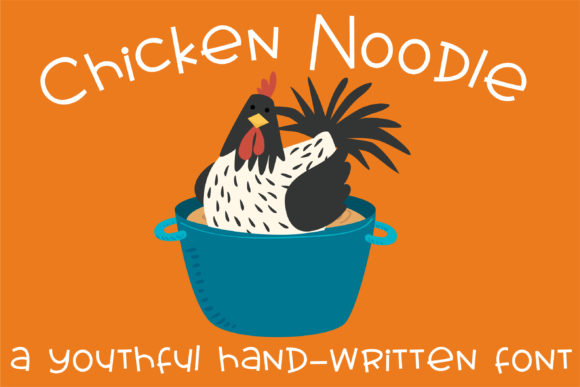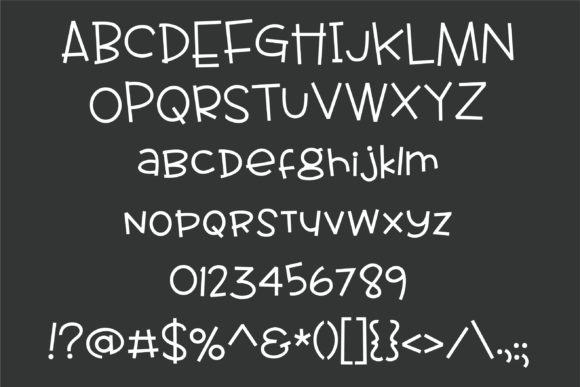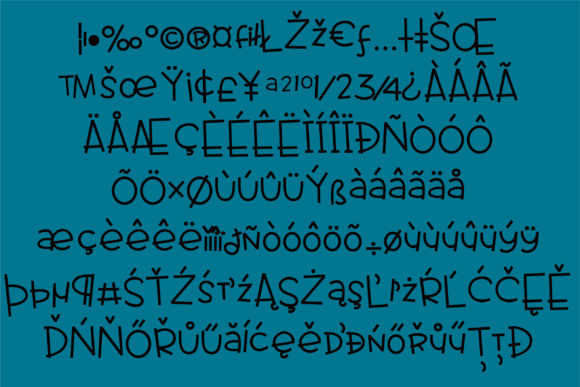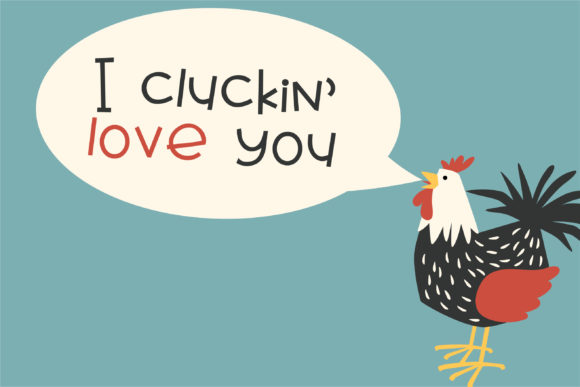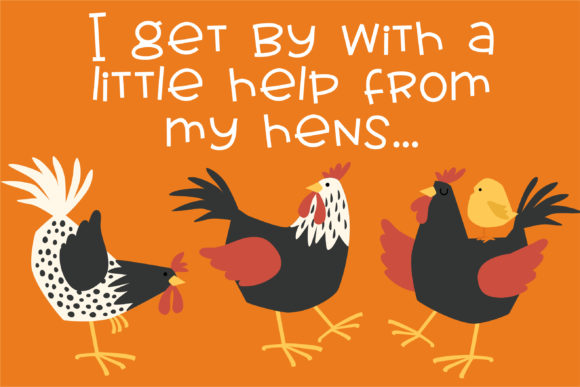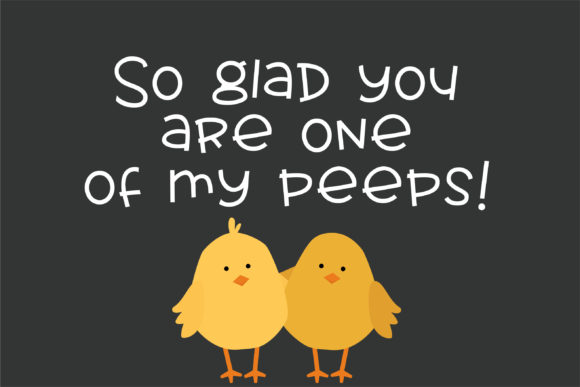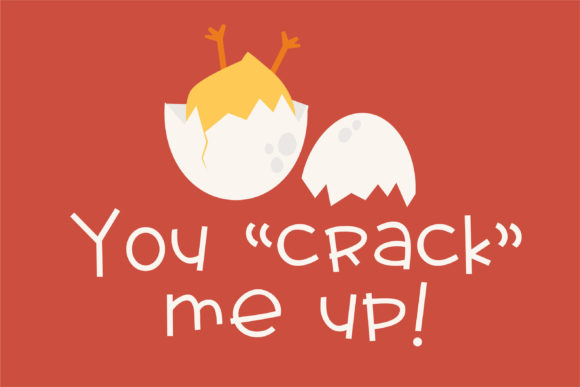
Chicken Noodle Font
Chicken Noodle is a simple and friendly handwritten font. Its quirky style makes it incredibly versatile, fitting a wide range of events. Use it to brighten up any school or kids project!